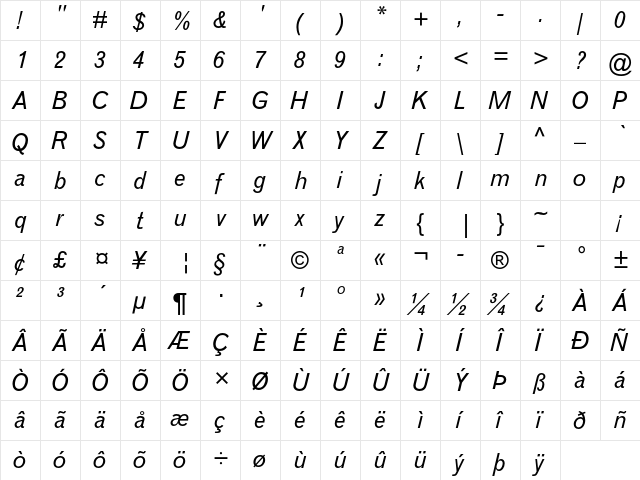
Grotesque MT Std Italic Font Preview
Grotesque MT Std Italic
Design Context for Grotesque MT Std Typeface
Grotesque MT Std is a composed and adaptable typeface that performs quietly and consistently across a wide range of design contexts. Its italic angle brings a sense of urgency and motion to the letterforms.
Pro Tip: Try Grotesque MT Std for annotation and caption copy alongside an upright companion — the contrast in angle creates a dynamic but ordered typographic system.